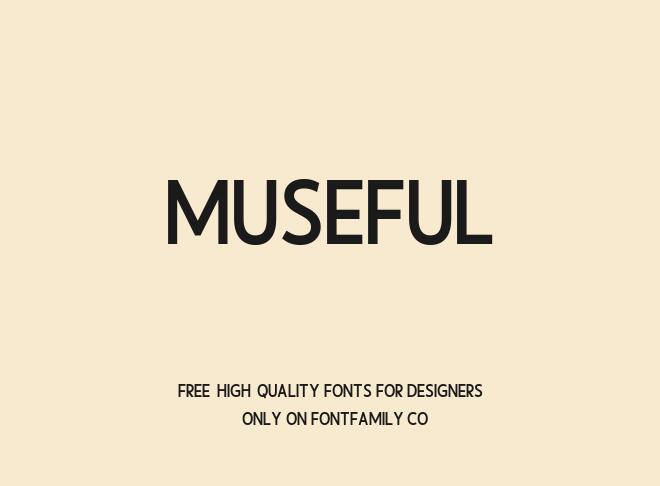
Museful Font
Museful Font is a modern, elegant, and minimalistic typeface designed by Creative Font Foundry. The font's clean and sophisticated design makes it an excellent choice for both digital and print media. Its sans-serif style adds a touch of modernity and simplicity, making it ideal for professional and corporate branding, website design, and minimalist graphic designs. Museful Font stands out from other fonts due to its unique blend of style and readability, offering a fresh alternative to traditional sans serif fonts. Its versatility and sleek design make it a go-to choice for designers aiming for a modern and elegant aesthetic.